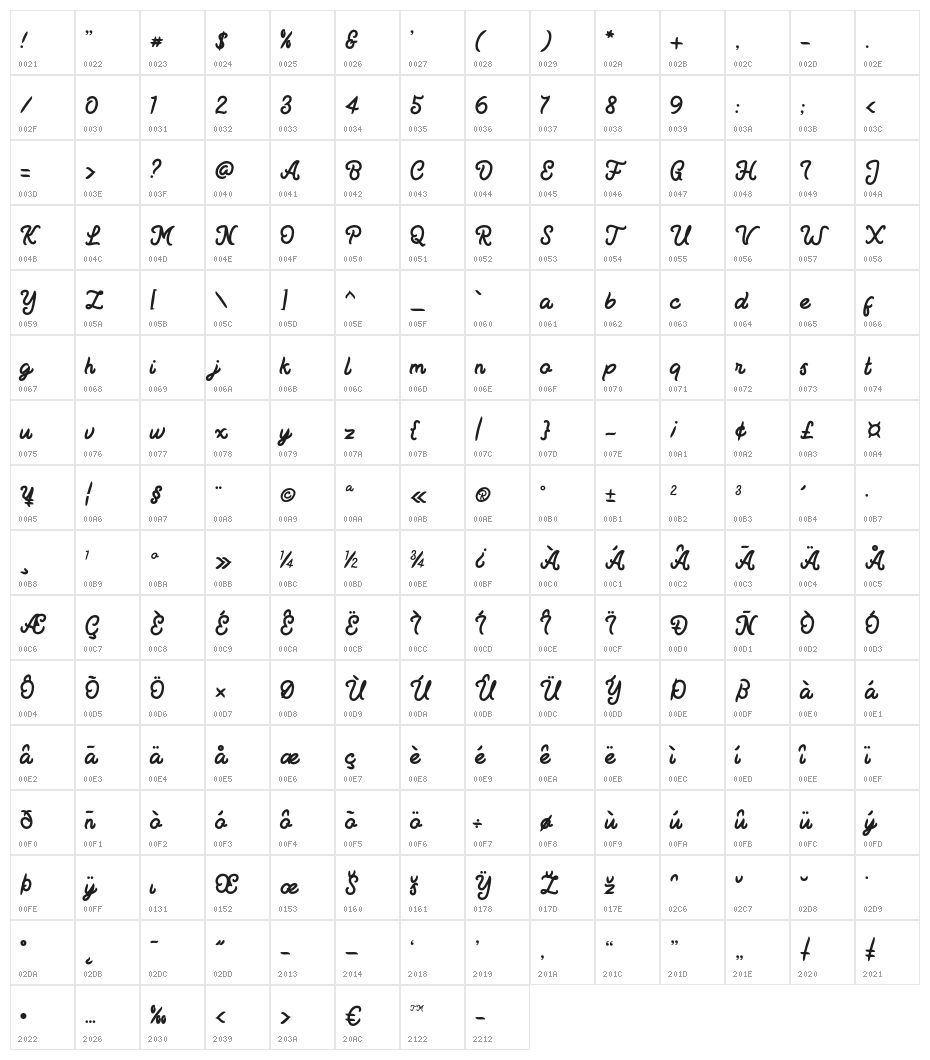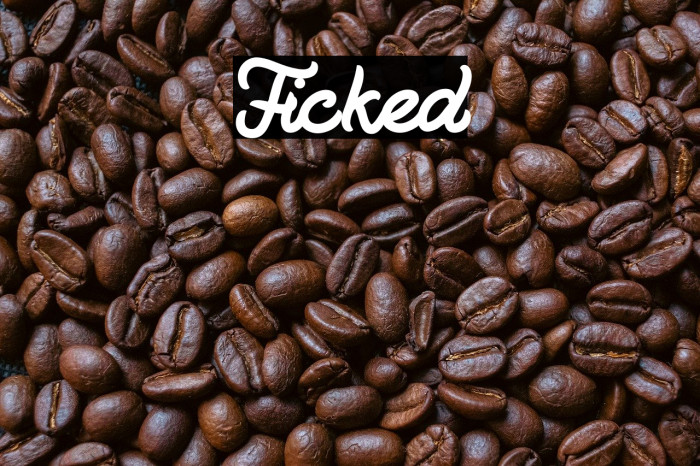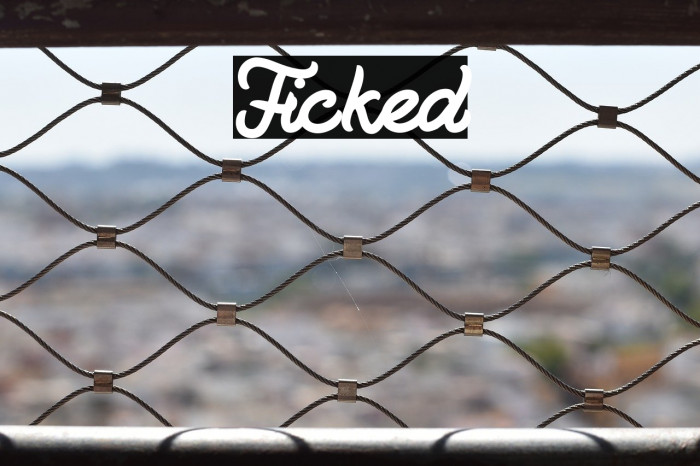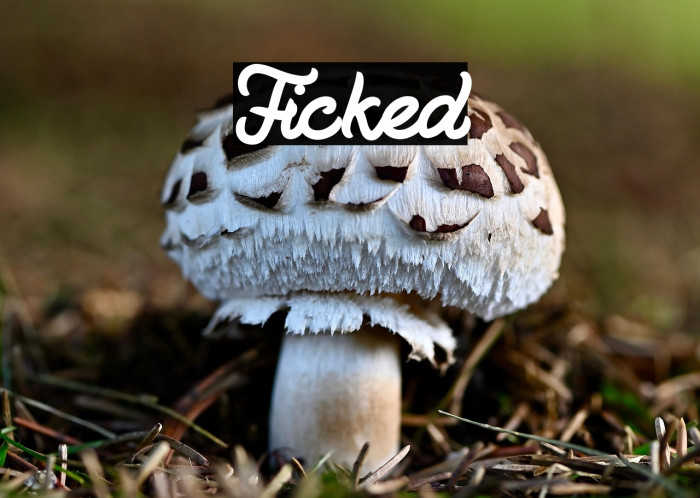
Ficked Font
Ficked Description
This font features a playful and flowing script style, characterized by its smooth, connected strokes and rounded forms. The uppercase letters are bold and prominent, while the lowercase letters maintain a consistent flow, enhancing readability. The numbers and special characters are designed to match the overall aesthetic, providing a cohesive look. The font's style is reminiscent of casual handwriting, making it approachable and friendly. Its fluidity and rhythm give it a dynamic appearance, suitable for projects that require a personal touch.
| Overall Style | Casual, Handwritten |
| Use Case | Logos, Invitations, Greeting Cards |
| Proposed Projects | Ideal for greeting cards, invitations, personal branding, and creative projects that require a friendly, handwritten touch. |